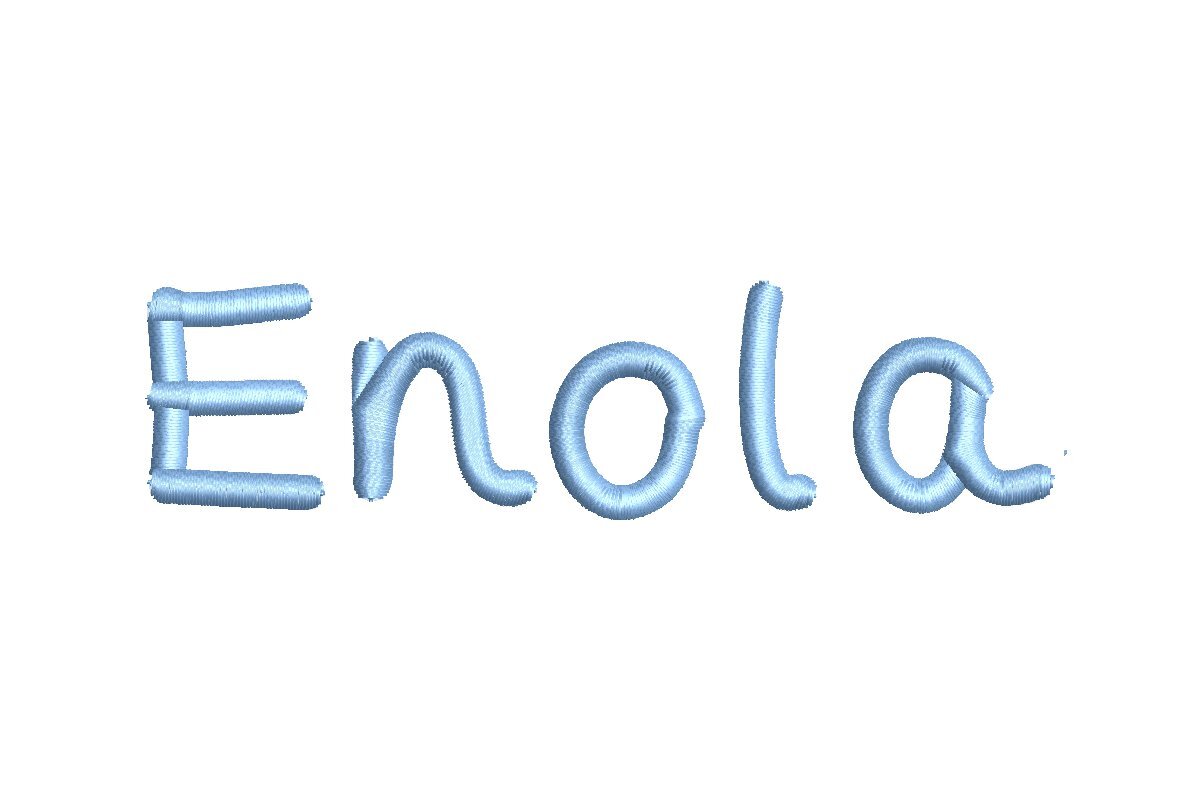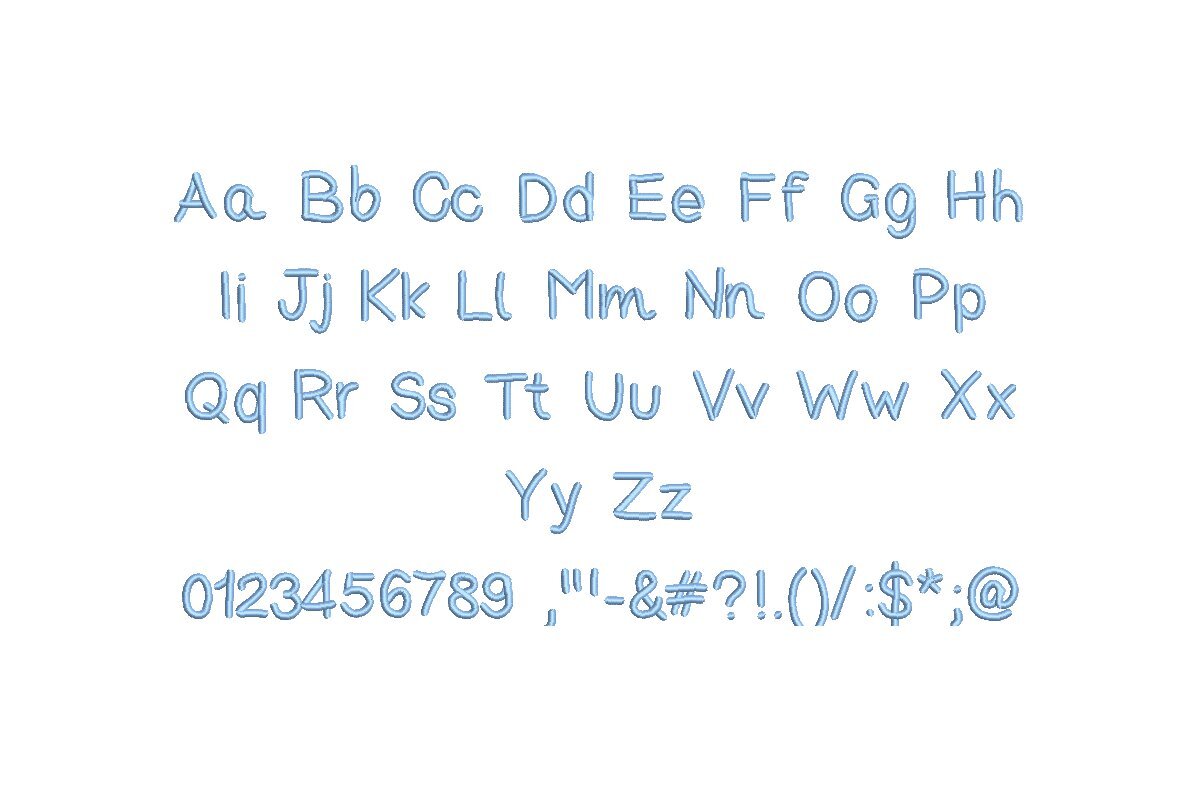
Introducing the Enola ESA font, your path to elegant embroidery excellence. Expertly tailored for seamless compatibility with Wilcom Studio e4.5.6 and Hatch 3 versions and up, this font effortlessly integrates into your digitizing process. Enola ESA offers exquisite precision and versatility, ideal for monograms, intricate designs, and sophisticated text. Elevate your embroidery projects with its exceptional quality and timeless style. Craft professional and captivating designs effortlessly on various fabrics and items. Don't miss the opportunity to enhance your embroidery journey. Choose the Enola ESA font today and unlock a world of creativity and precision with every stitch, setting new standards for your embroidery excellence.